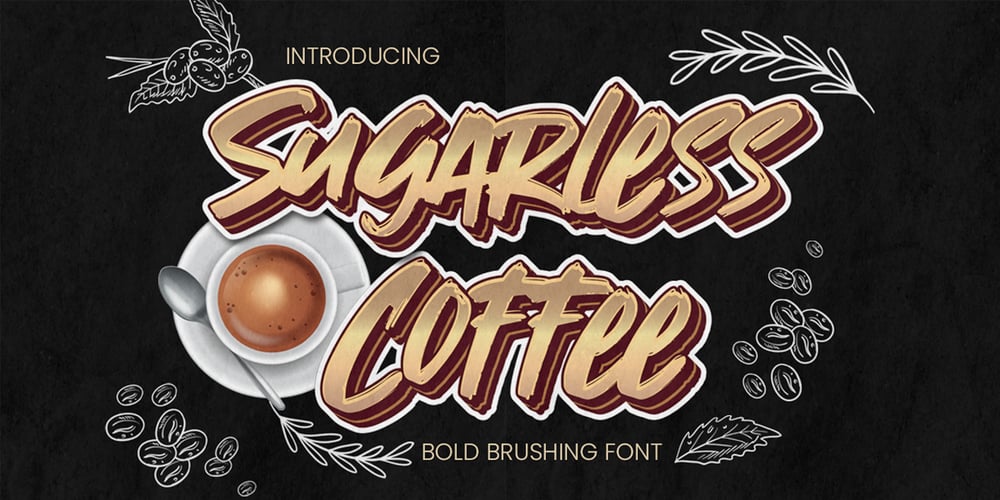
Sugarless Coffee Font Family was designed by Abdul Malik Wisnu, Anang Fibriyanto and published by Gassstype. Sugarless Coffee contains 1 styles and family package options. Hello Everyone, introduce our new product Sugarless Coffee – Bold Brushing Font Crafted Display, inspired by the title of the sports poster and We make it very energetically. Sugarless Coffee font with strong and challenging nuances. very suitable for the title, typography, Poster, magazines, brochures, packaging,Websites and much more for your design needs, making your designs more modern and professional.Inspired by Logo style and combination with Cute Craft style. that will fulfill your design needs for quotes,sporty theme, logotype, wordmark, etc. This has many opentype features and support multi language.You can activate Ligature OpenType panel design more interesting.